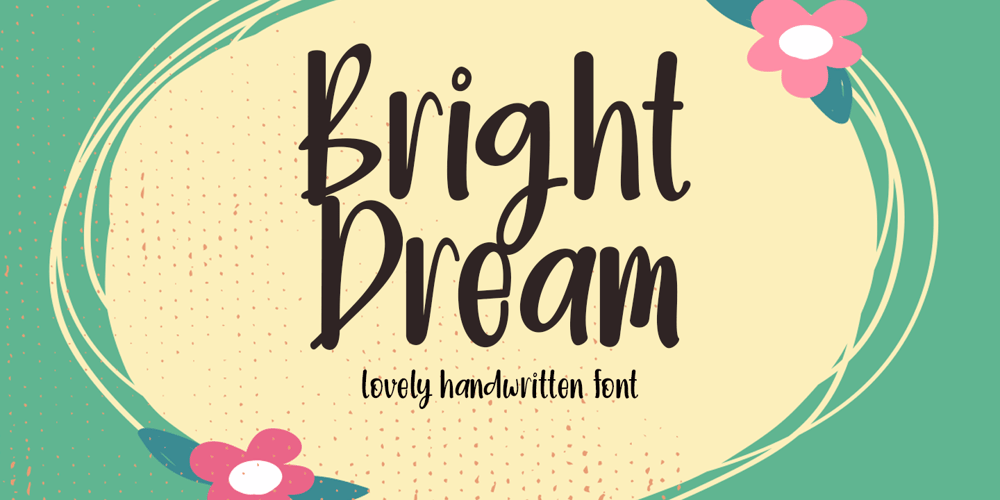
Bright Dream Font Family was designed by Arief Tri Sulistiyono and published by Supersemarletter. Bright Dream contains 1 styles and family package options. Bright Dream is a cute and quirky handwritten font. It will add an incredibly sweet and joyful touch to your designs. Add this beautiful font to each of your creative ideas and notice how it makes them stand out! Honestly it’s works perfectly for headlines, logos, posters, packaging, T-shirts and much more.Font Features : Regular Version Character set A-Z in Uppercase and Lowercase Numerals and Punctuation Accented Characters Multiple Languange Supported Format File OTF Recomended to use in Adobe Illustrator or Adobe Photoshop with opentype feature.If you have any questions, just send me a message and I’m glad to help.